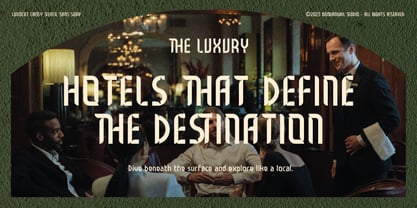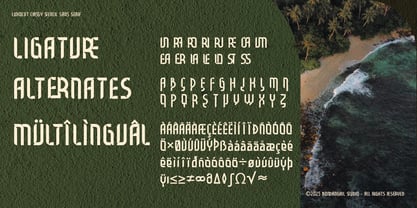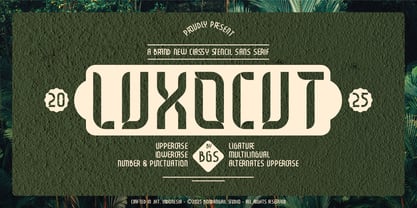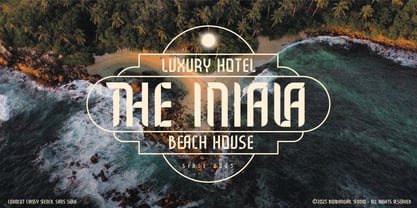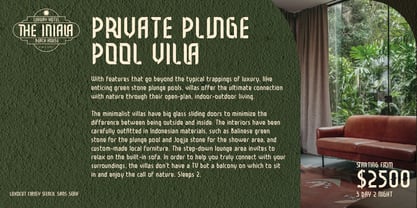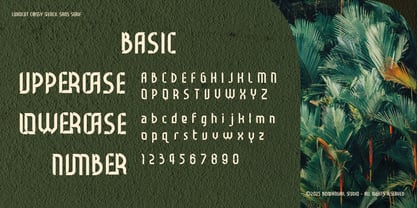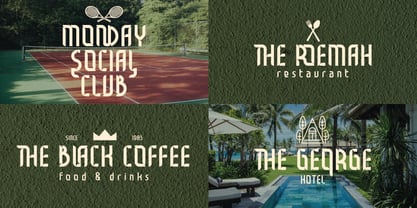
Luxocut
by BondanGail
The Luxocut Font Family was designed by Bondan Gail Saputro and published by BondanGail. Luxocut contains 1 styles.
Luxocut is a sophisticated and versatile sans-serif typeface that combines timeless elegance with a modern, edgy feel. Its clean, sleek lines and stylish stencil design make it perfect for prestigious hotel logos, luxurious restaurant branding, or high-end projects. Whether used for logos, posters, or web design, Luxocut adds a contemporary touch while maintaining a sense of class and refinement.
• Uppercase, Lowercase, Numeral, Symbol and Punctuation
• Uppercase Alternates
• Ligature
• Multilingual
Designers: Bondan Gail Saputro
Publisher: BondanGail
Foundry: BondanGail